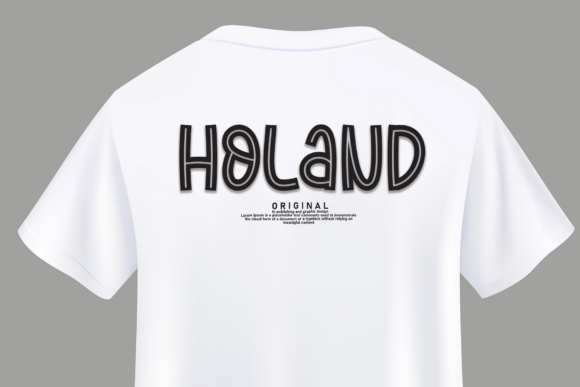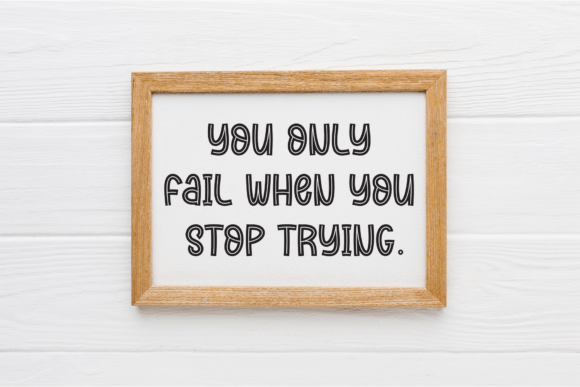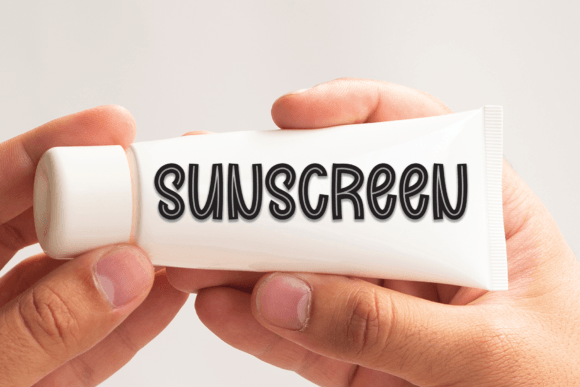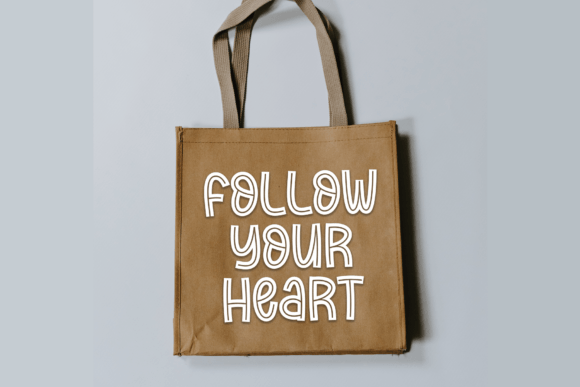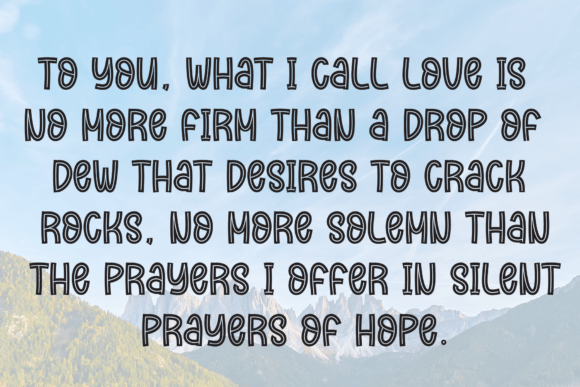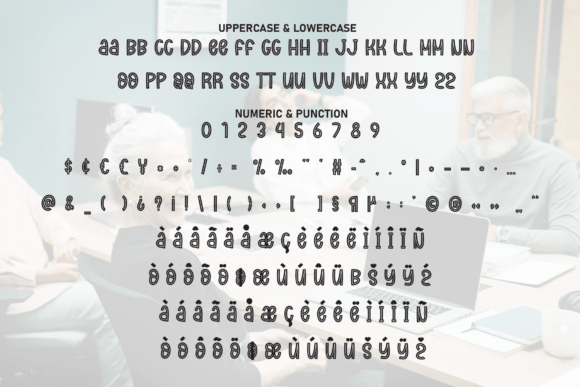
Introduction to Senior Varsity Font Font
Fonts play a crucial role in design, and the Senior Varsity Font font is a typeface that brings both character and versatility to any project. Whether you’re working on a branding project, a website, or a print design, the Senior Varsity Font font offers a unique style that can elevate your work.
Introducing a charmingly warm and pleasing handwritten display font that is sure to captivate.
Enlivened with a jovial and engaging vibe, this distinct font magically transforms your everyday text into an alluring piece of art Perfect for personalizing wedding invitations, greeting cards, and various other designs, it impeccably infuses a delightful note of whimsy.
Key Features of Senior Varsity Font Font
Why Choose Senior Varsity Font Font?
The Senior Varsity Font font is more than just a typeface – it’s a design tool that helps you communicate your message with style and clarity. Its unique character set and versatile design make it suitable for a wide range of applications, from elegant invitations to bold headlines.
With its carefully crafted letterforms and balanced proportions, the Senior Varsity Font font ensures readability and visual appeal across all mediums.
What makes Senior Varsity Font font special?
The Senior Varsity Font font stands out with its unique design, exceptional readability, and versatility across various design applications.